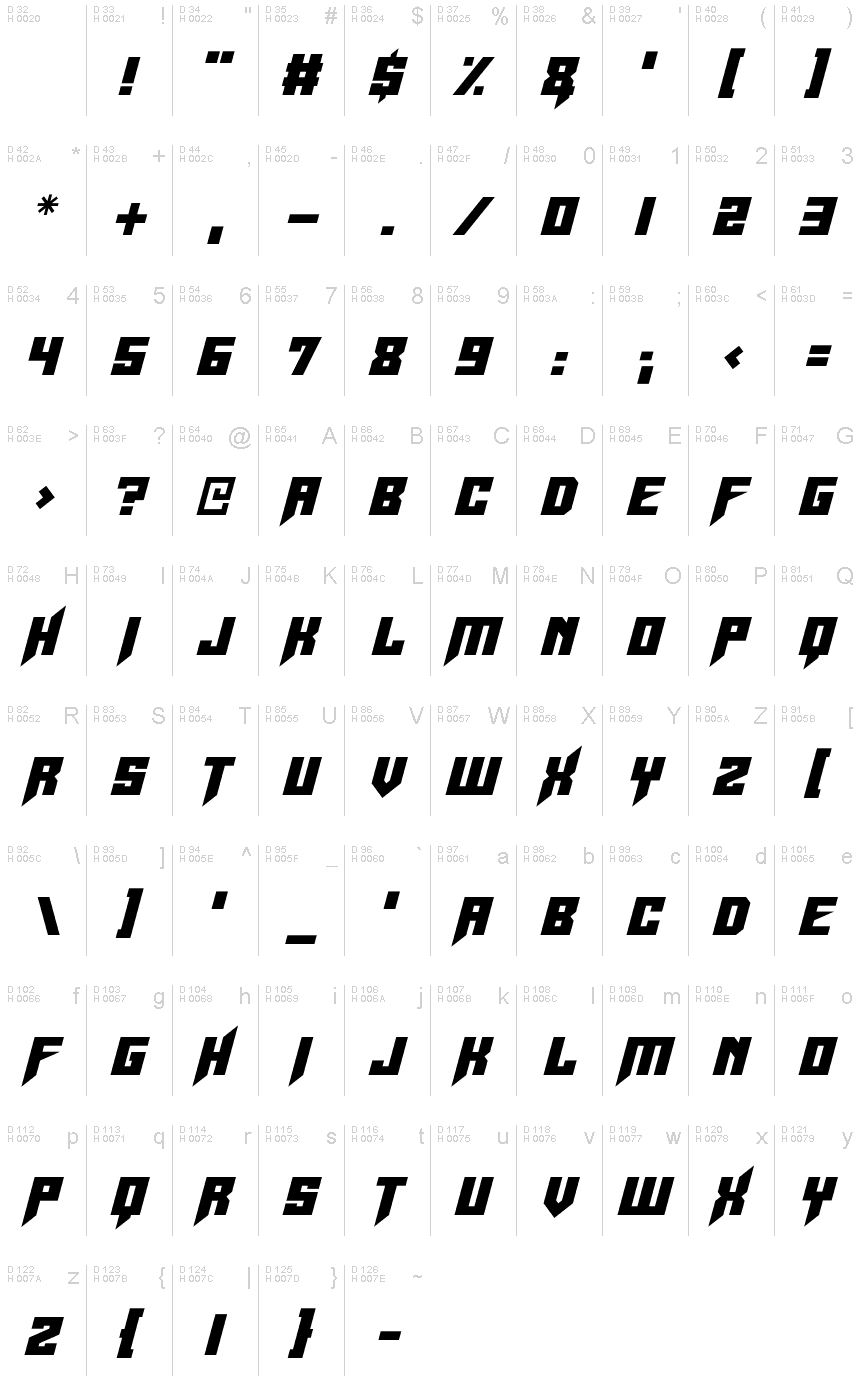
Space Shards Italic
Space Shards Italic is a futuristic display font designed by Darrell Flood. Its gothic touch makes it perfect for projects that require an edgy and modern look, such as logos, posters, titles, and album covers.